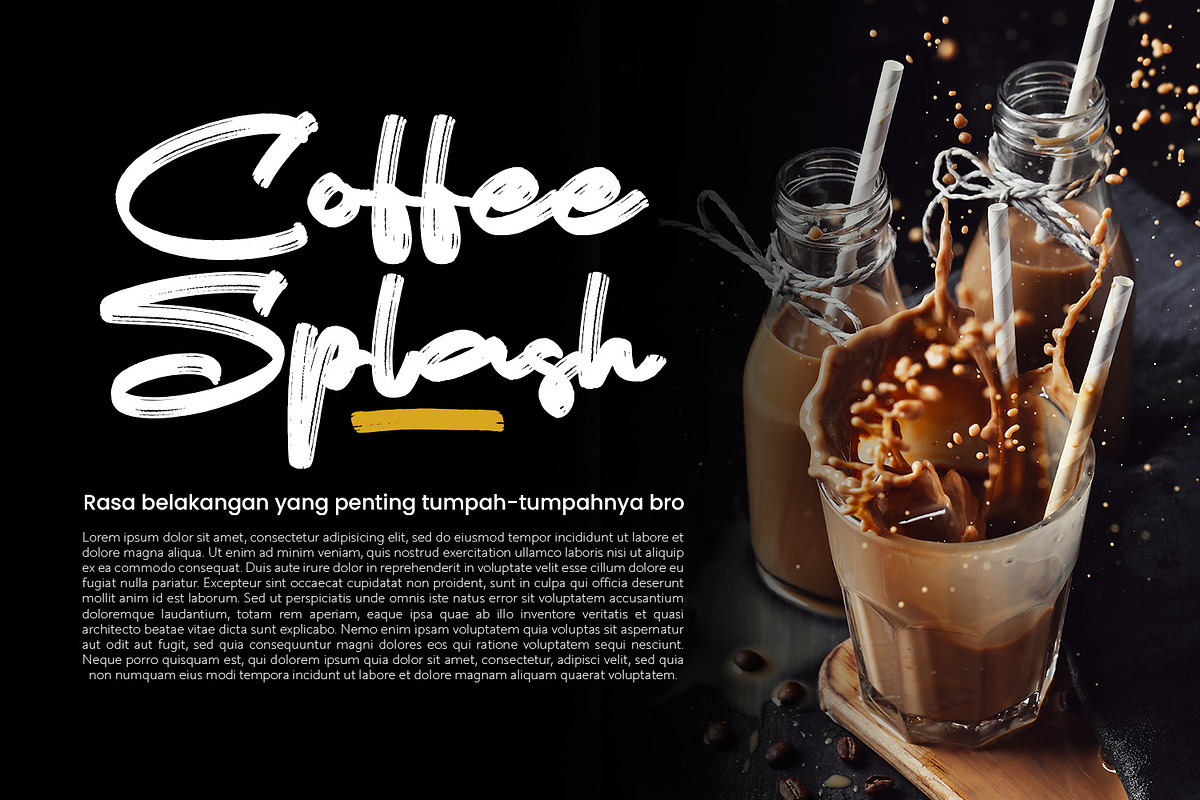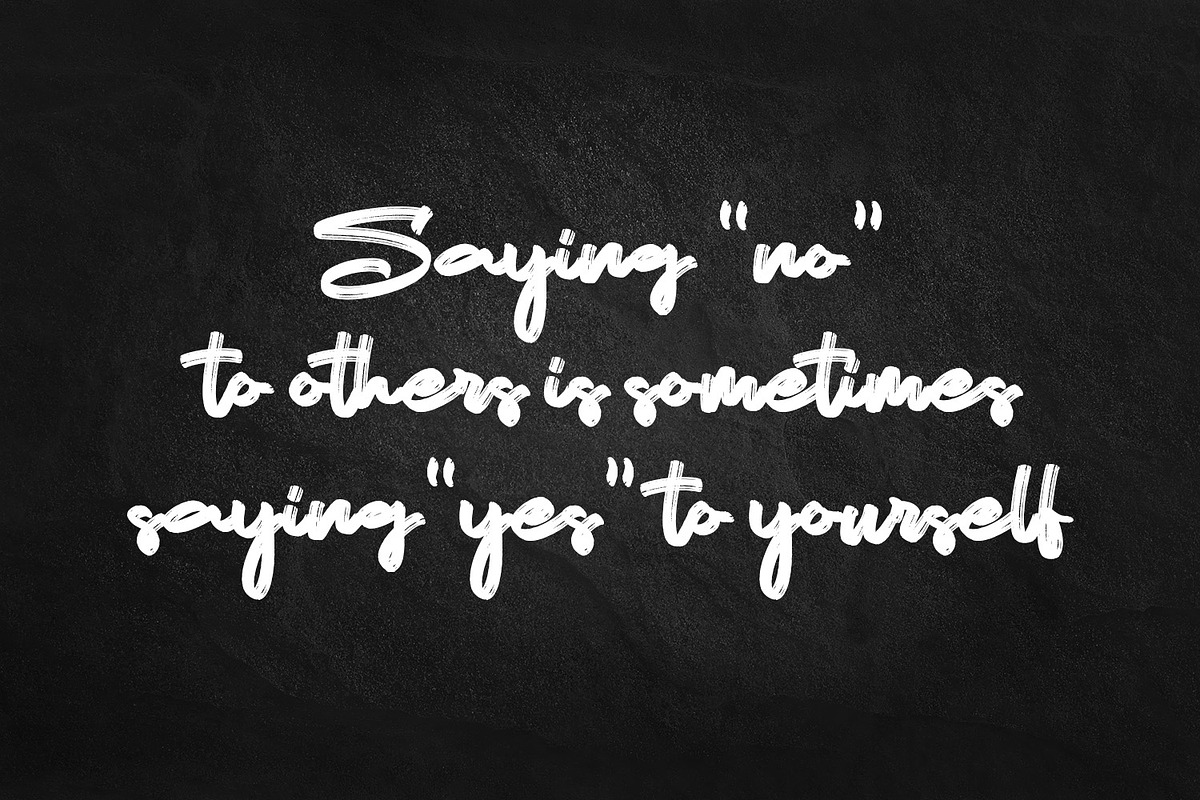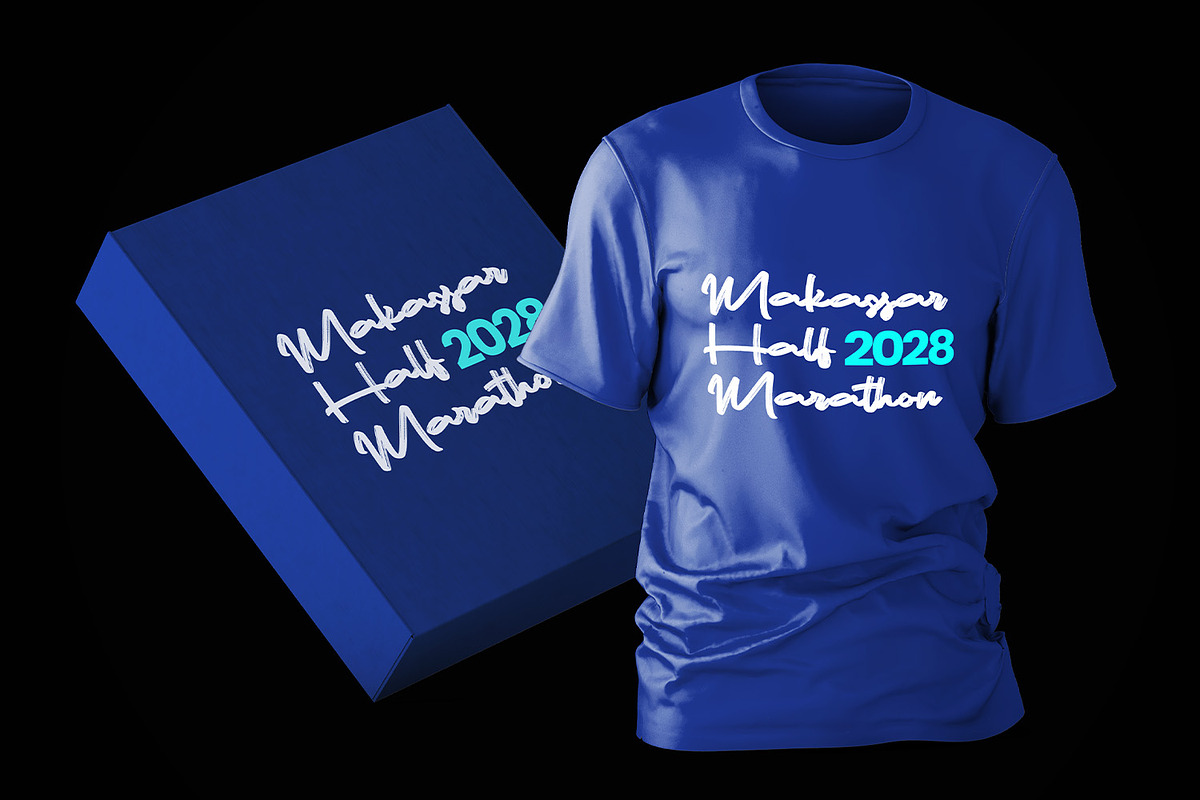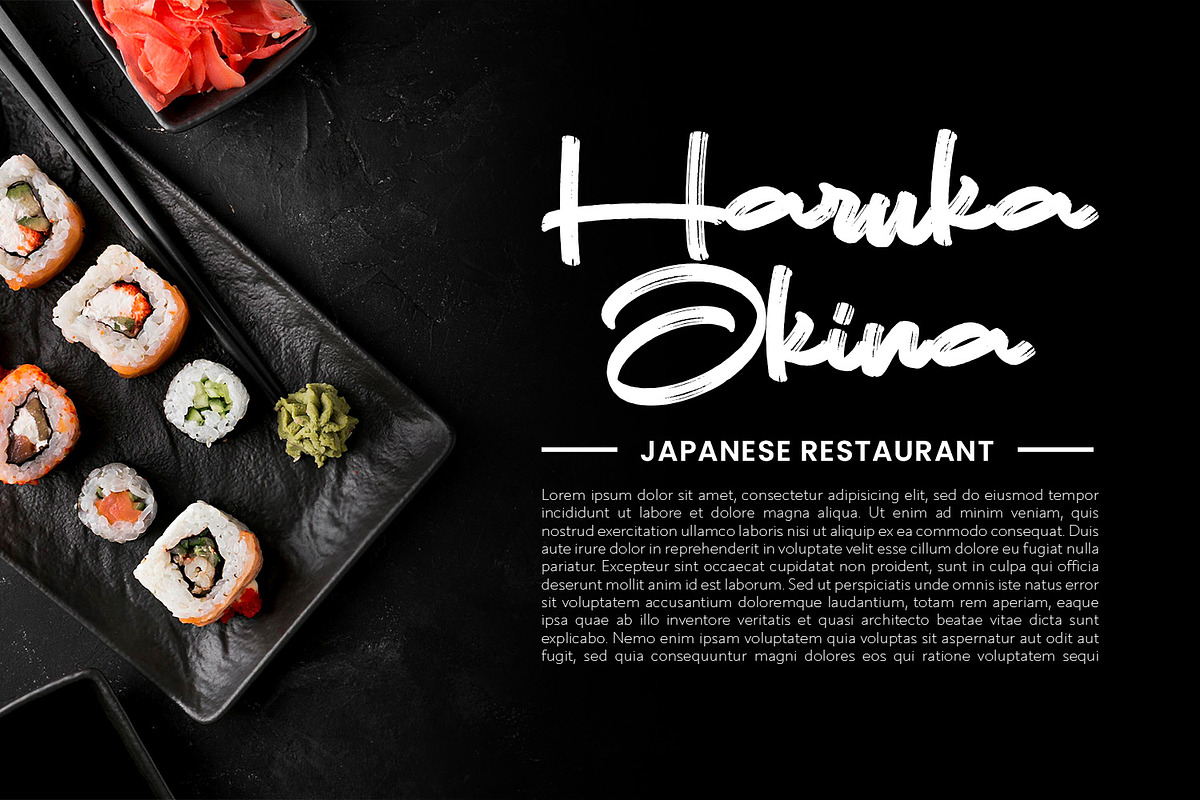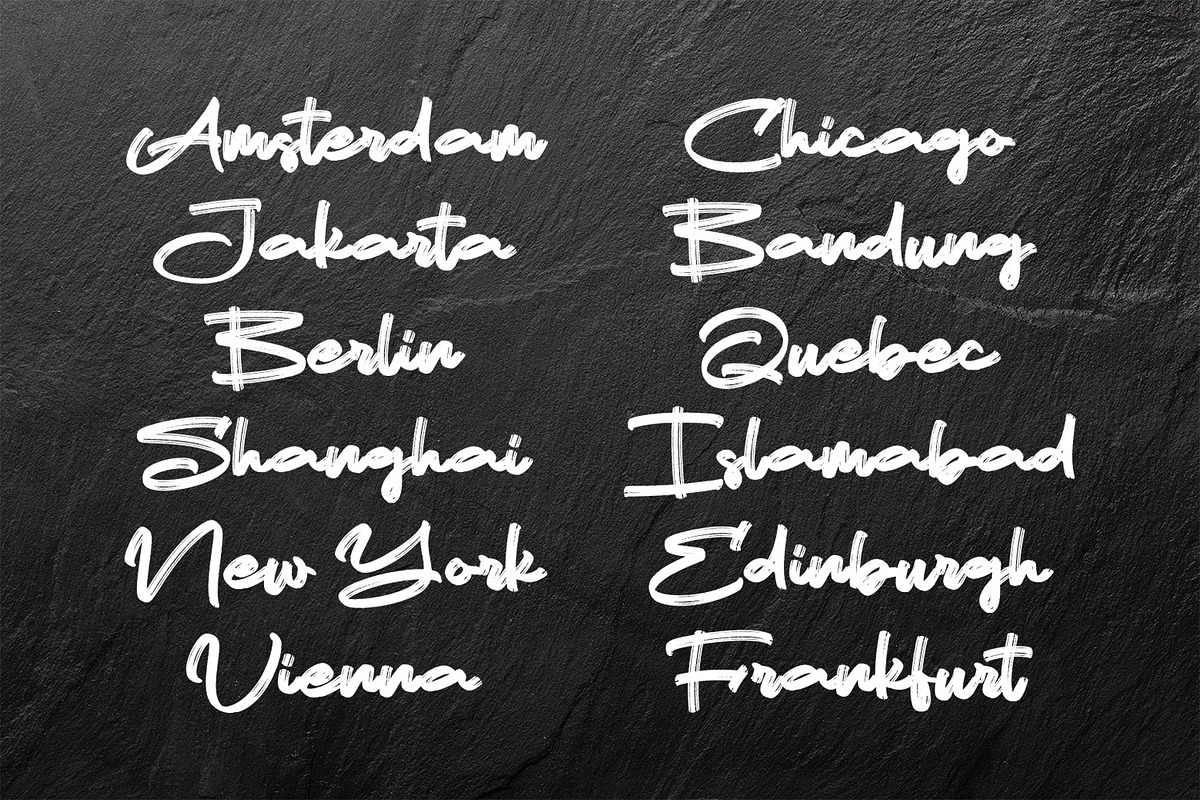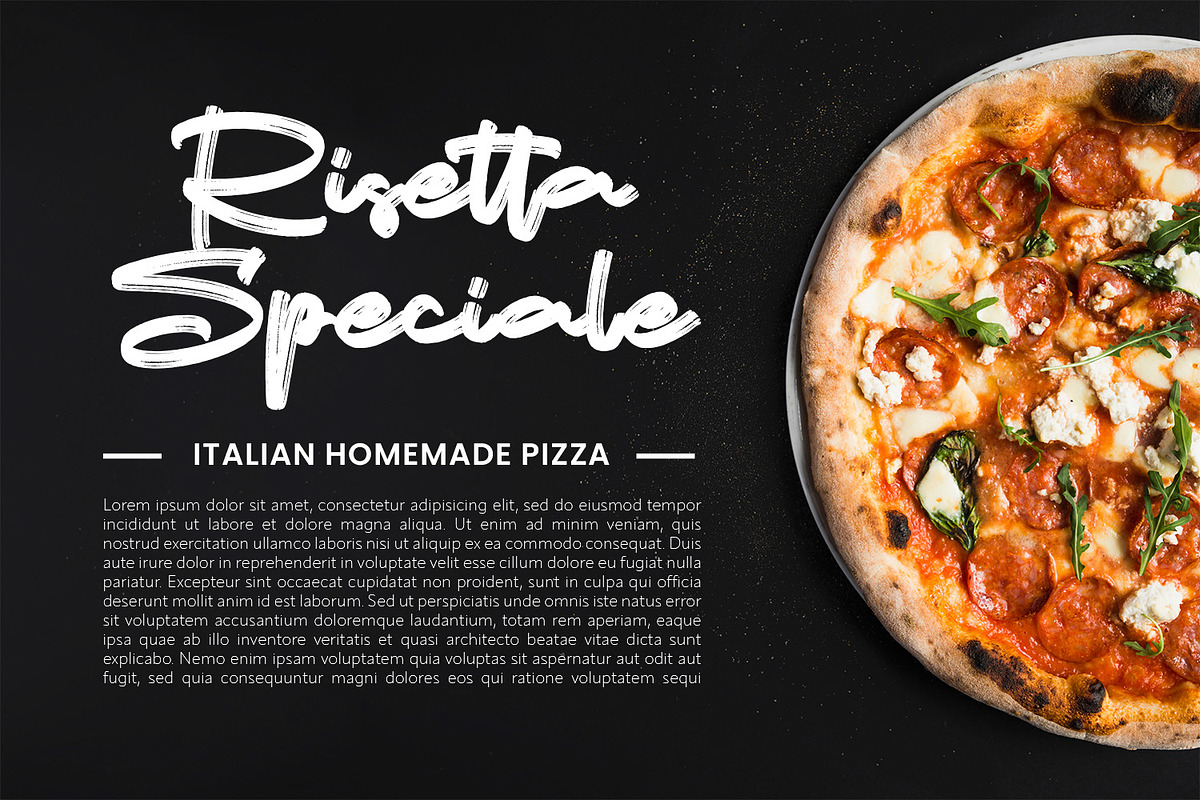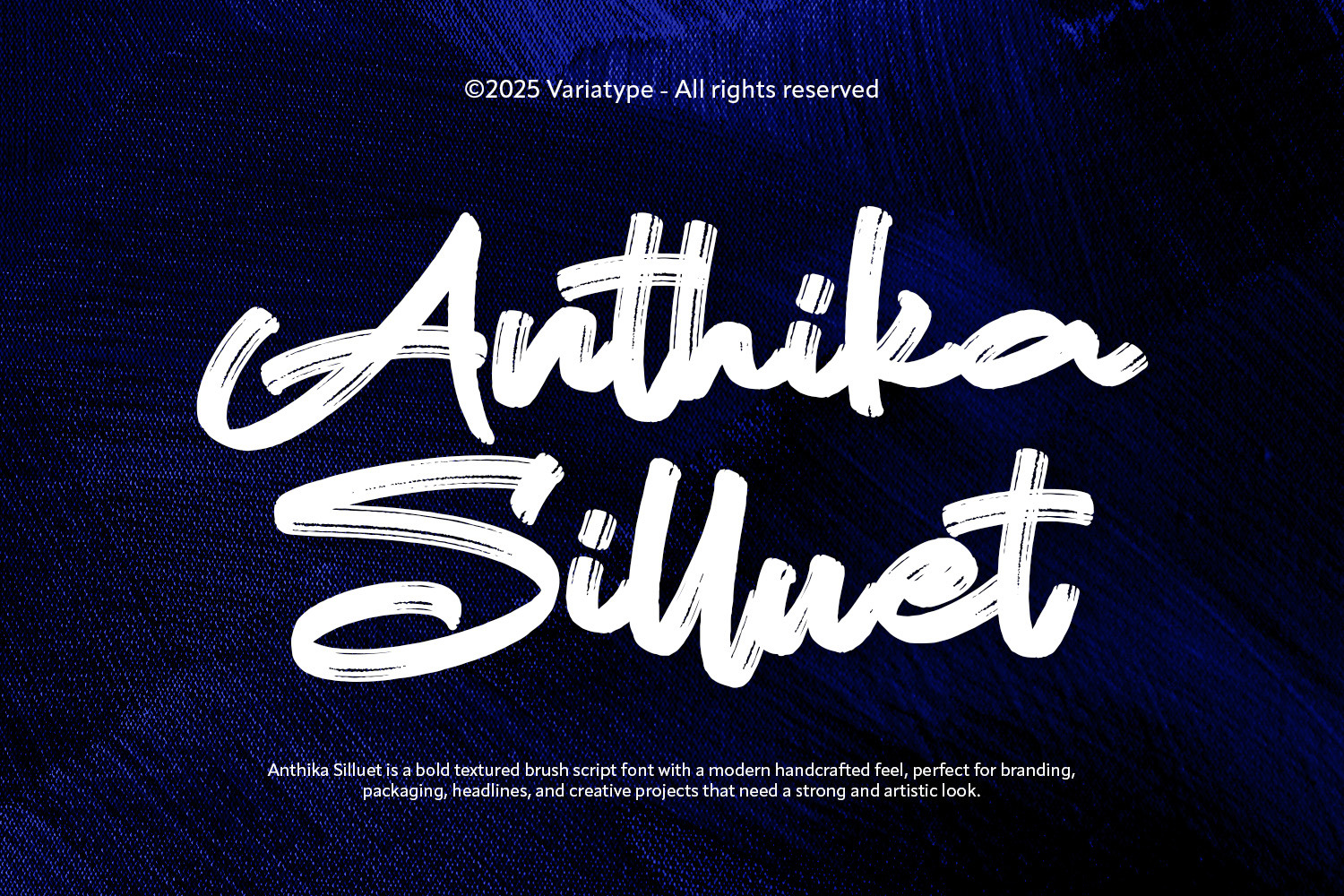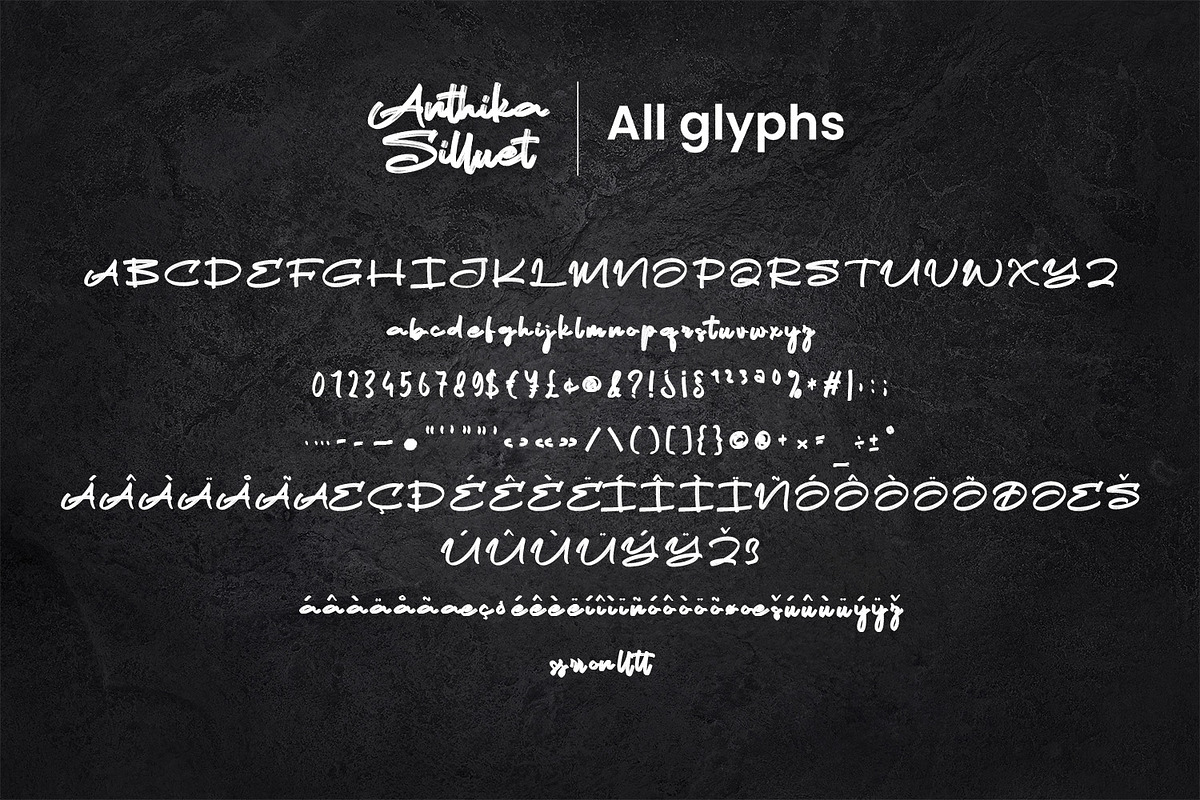
Anthika Silluet – Brush Script Font
Anthika Silluet is a bold textured brush script font with a modern handcrafted feel, perfect for branding, packaging, headlines, and creative projects that need a strong and artistic look.
Additional Accents
68 Languages